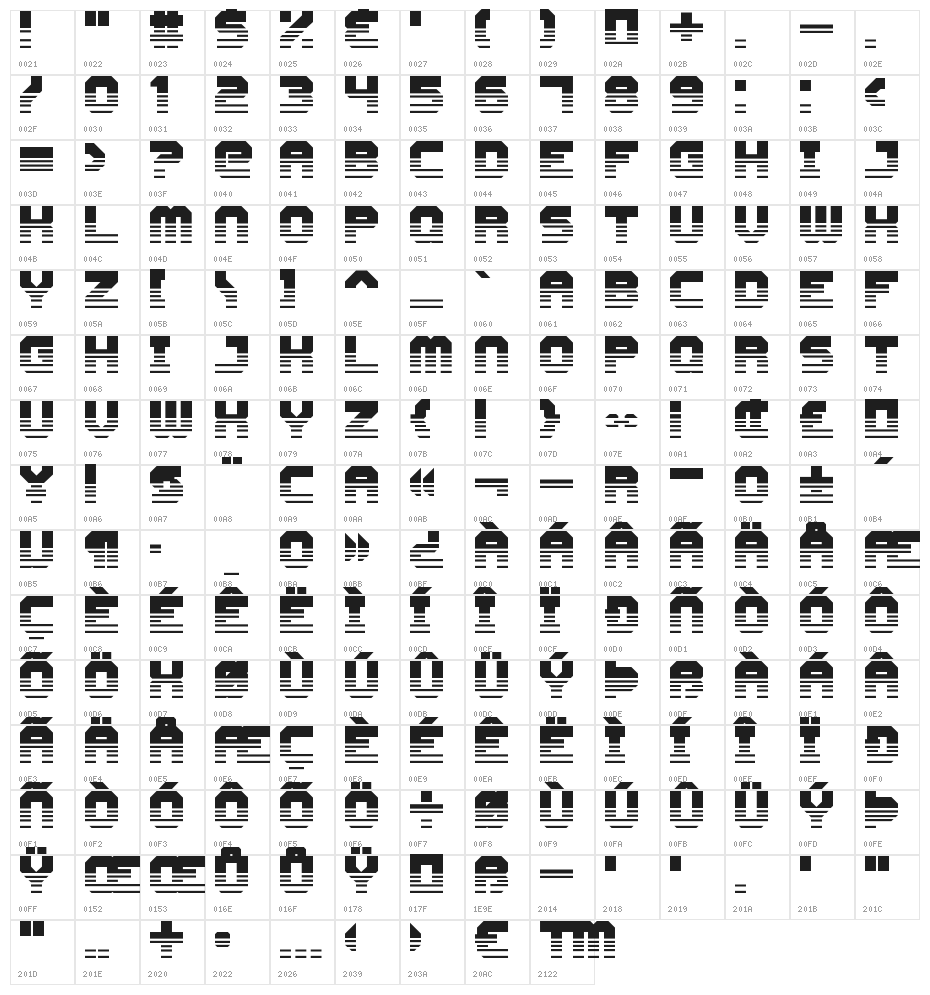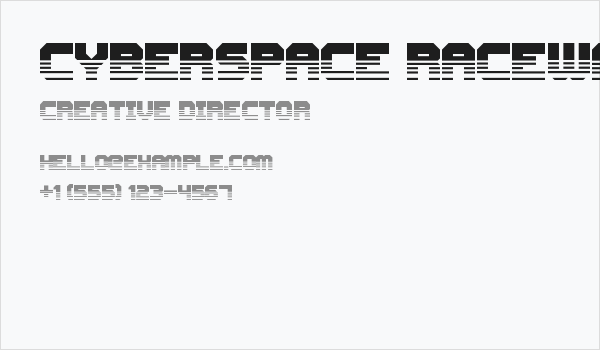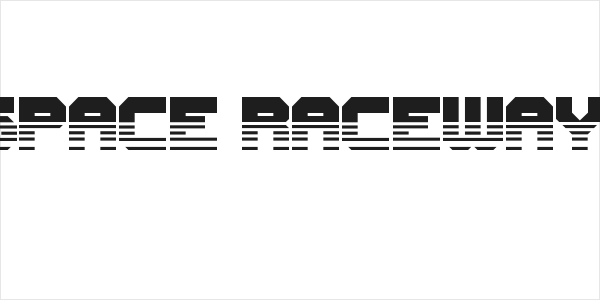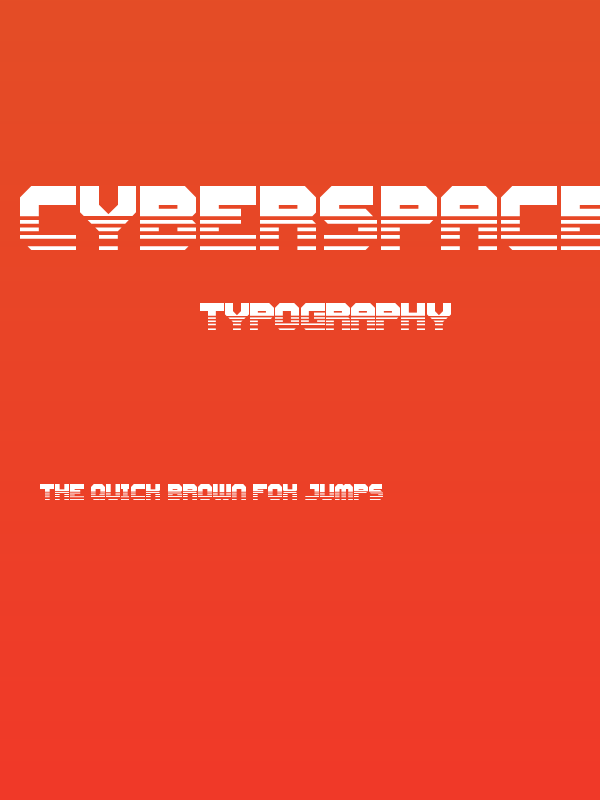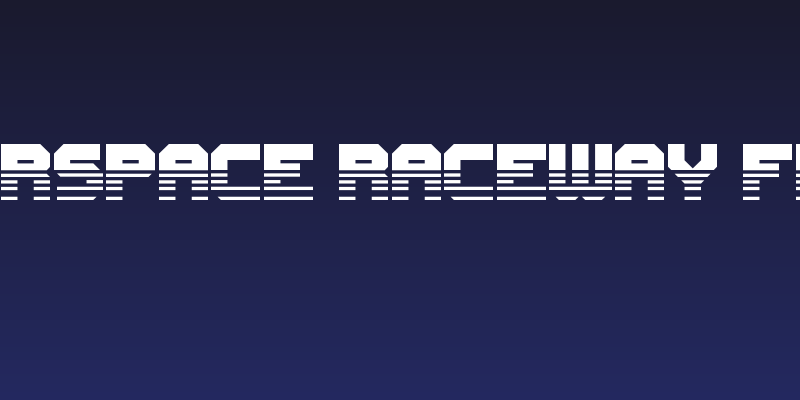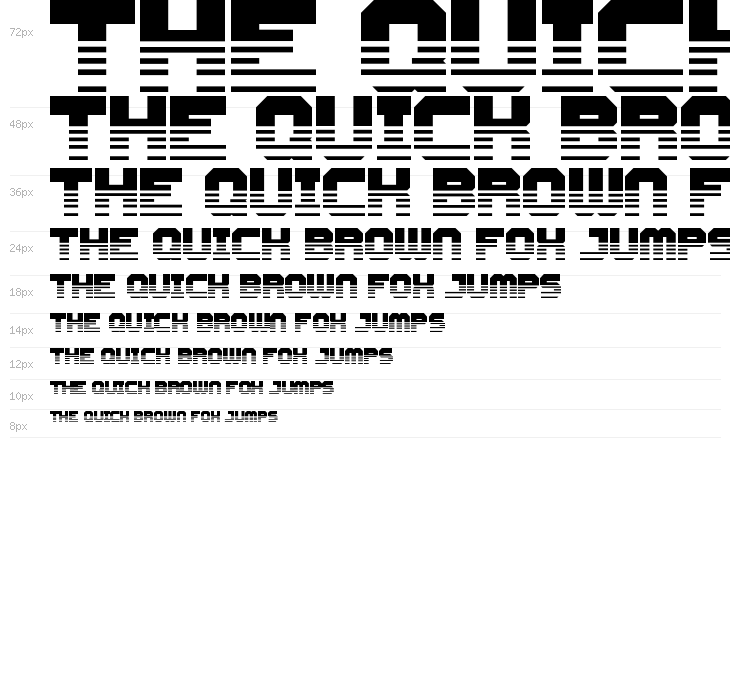
Cyberspace Raceway Front Font
Cyberspace Raceway Front Description
This font features a futuristic and dynamic design, characterized by its bold, geometric shapes and horizontal line patterns that create a sense of movement and speed. The uppercase and lowercase letters, as well as numbers and special characters, maintain a consistent style with sharp angles and a blocky appearance. The horizontal lines give the impression of a digital or technological theme, making it suitable for projects that require a modern and edgy look. The font's unique style is both eye-catching and versatile, ideal for creative and innovative designs.